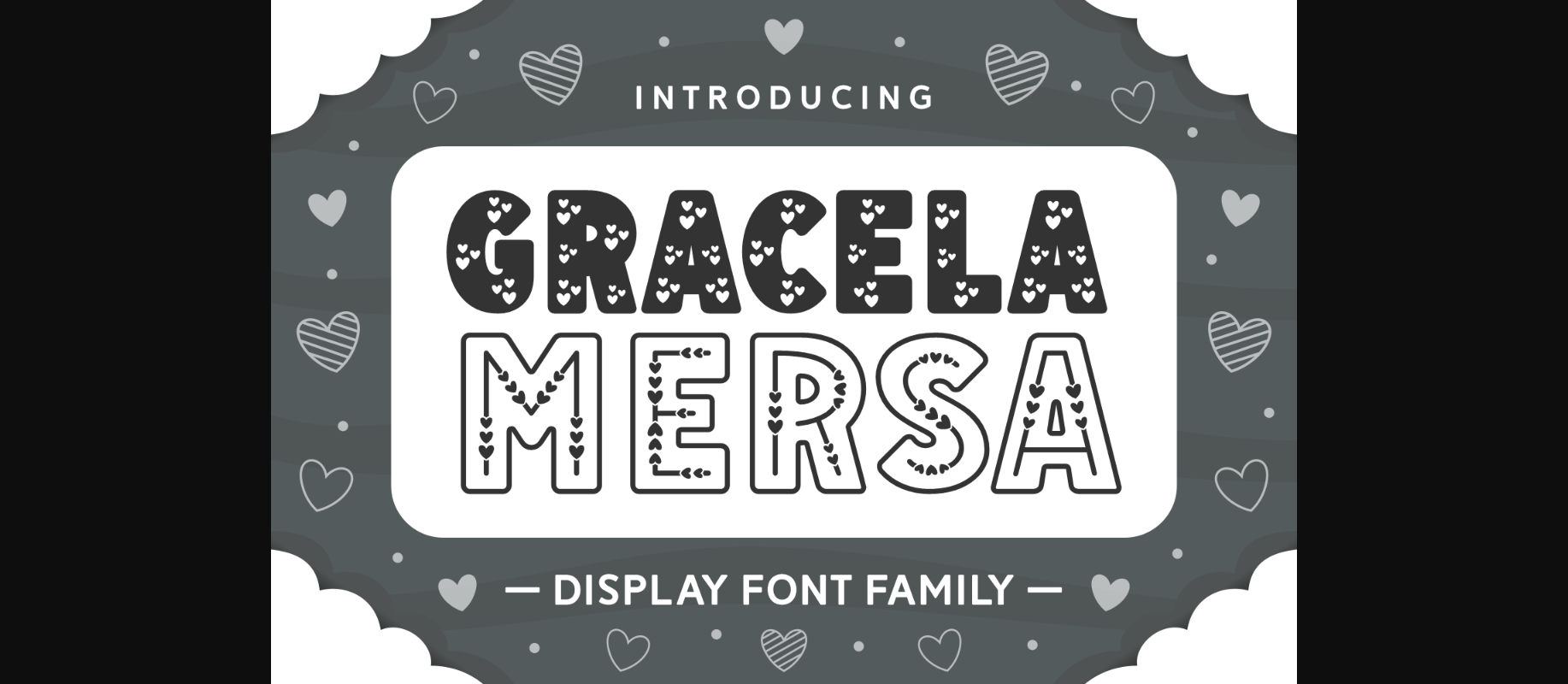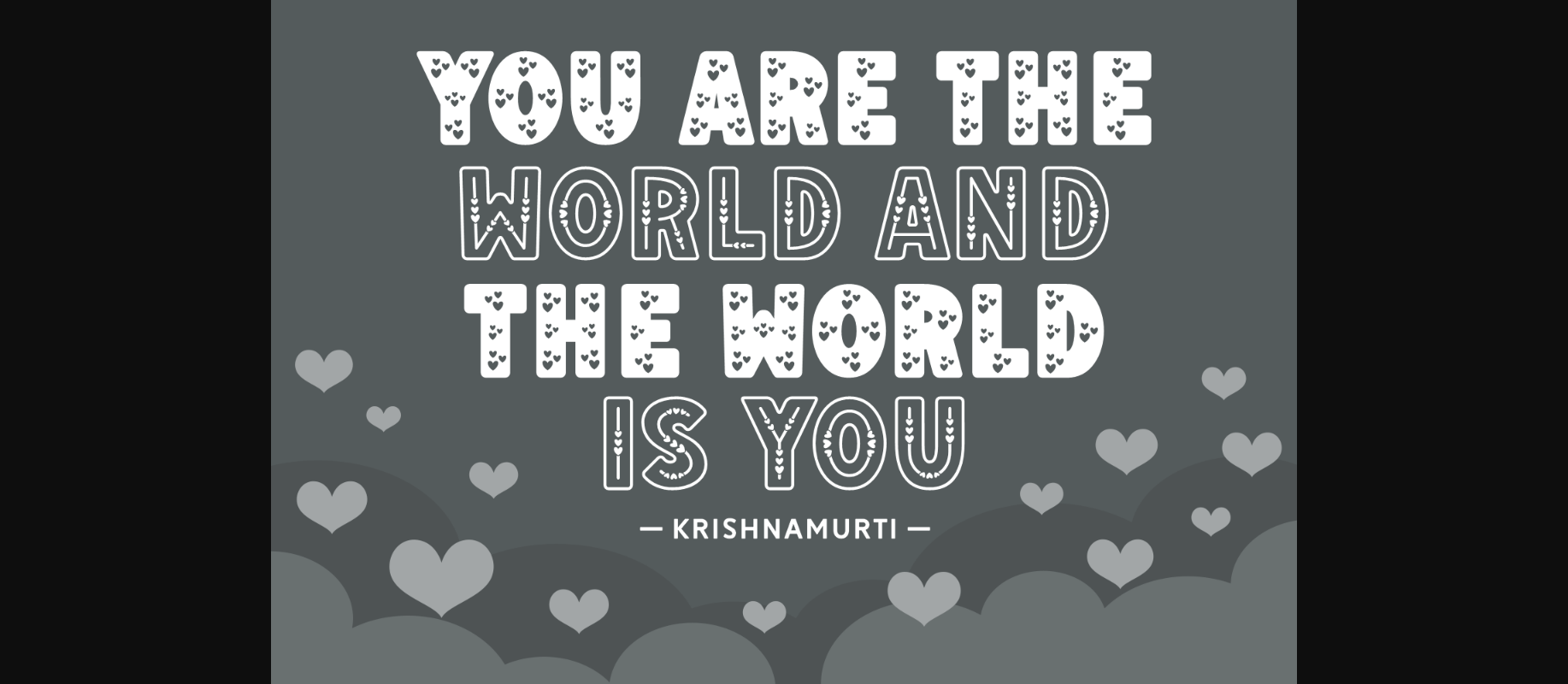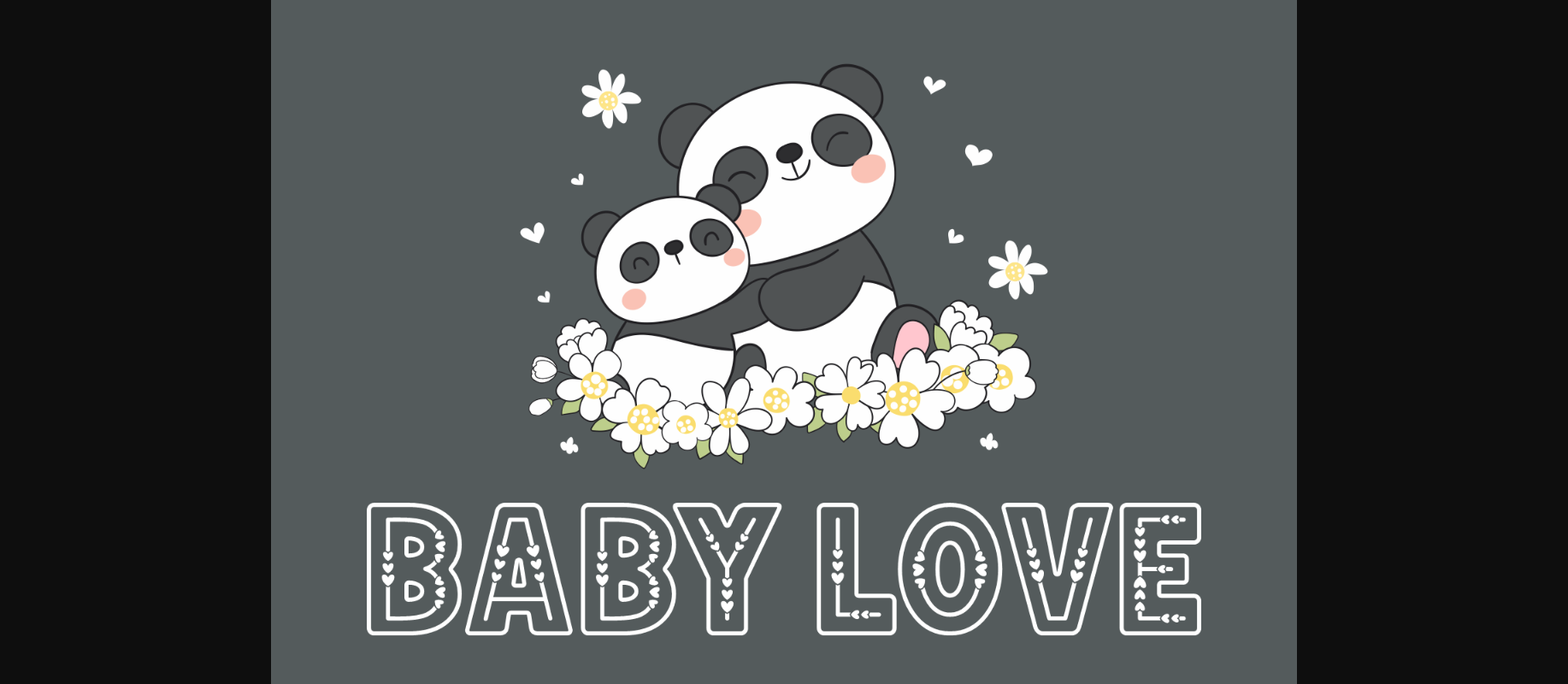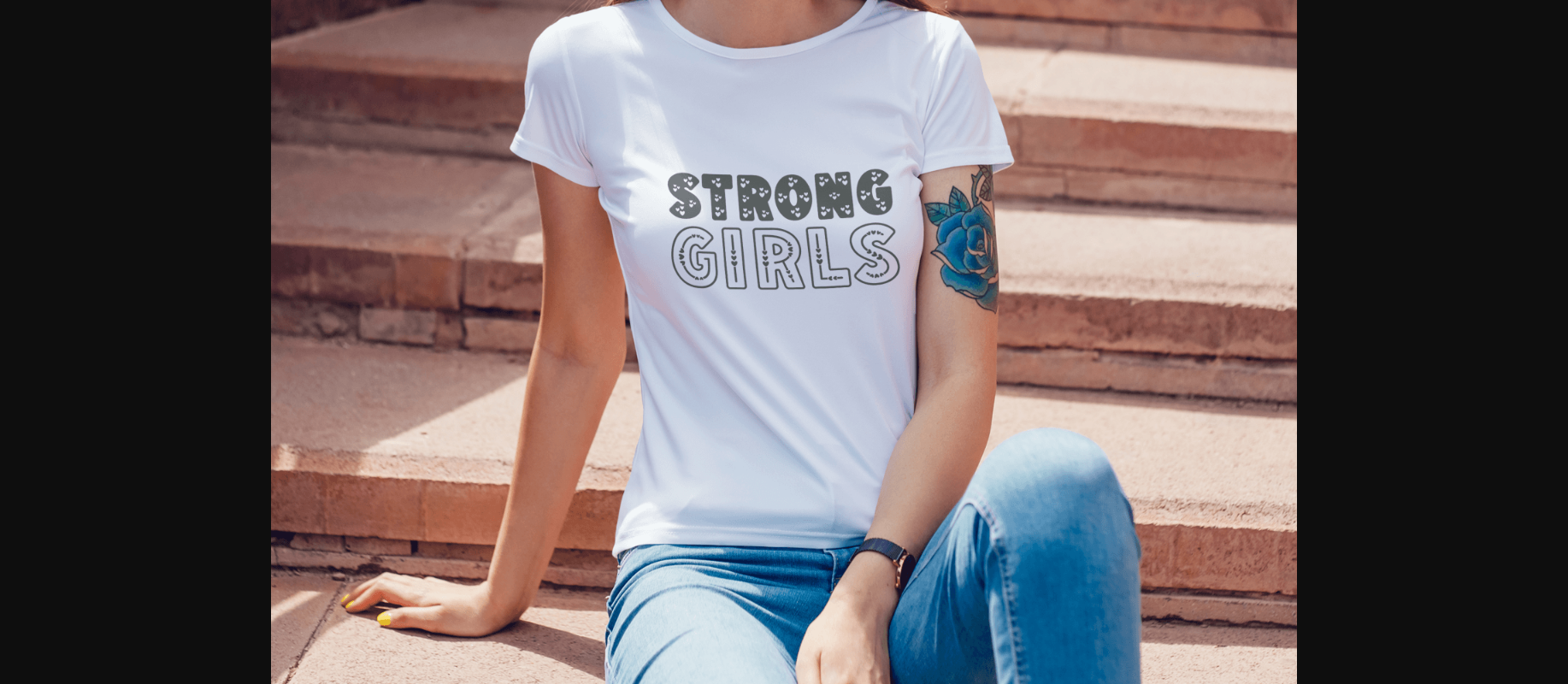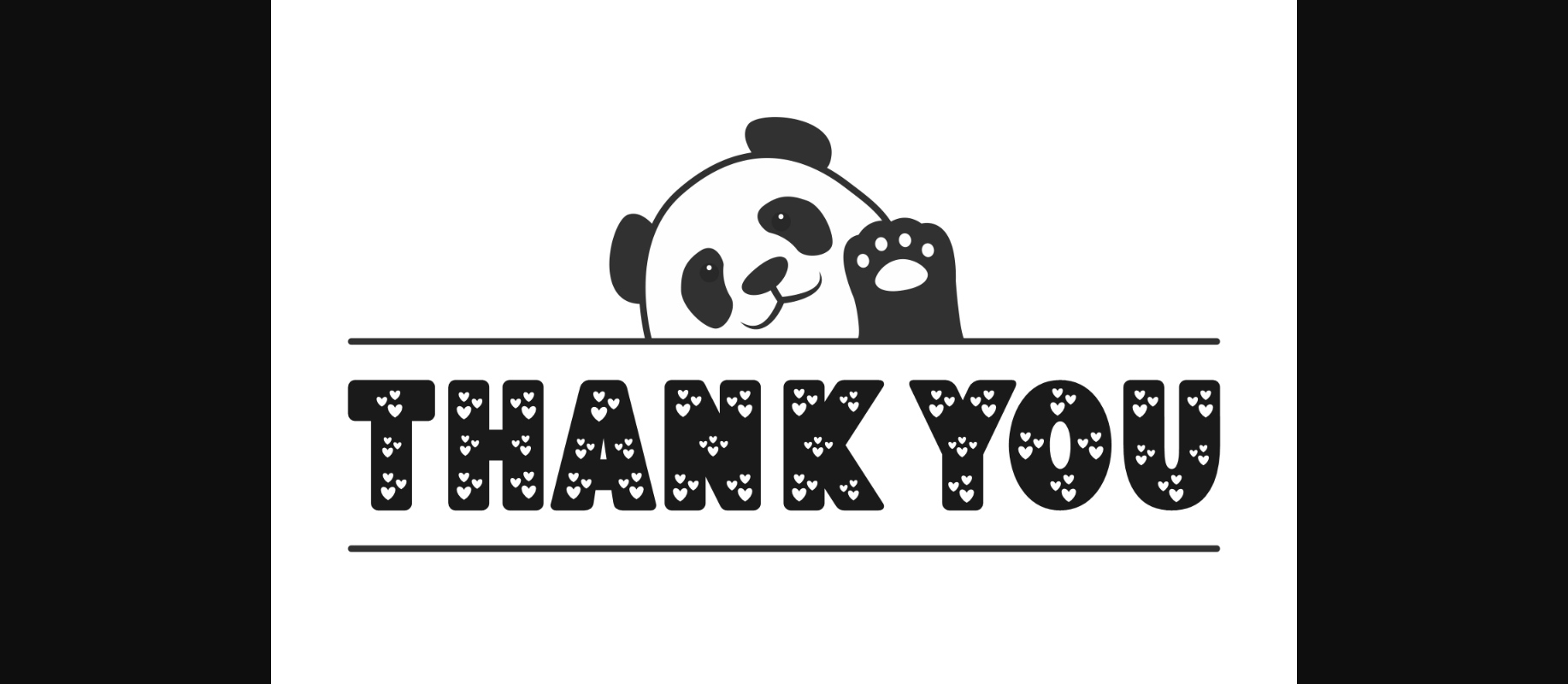
About Gracela Mersa Font
Gracela Mersa is a captivating decorative font with little heart details. Enhance your creative projects with this lovely typeface that looks stunning on t-shirts, baby onesies, nursery decorations, greeting cards, and many more!
It includes two versions – regular and outline.